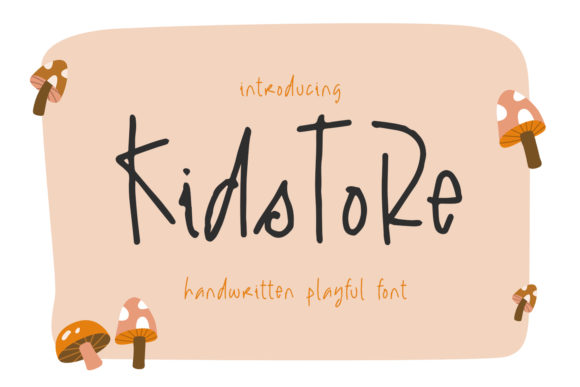
Welcome to the world of Kidstore Script Font - a lively and playful handwritten font that will leave you spellbound. Crafted with meticulous care by the talented team at cilatype, Kidstore is the perfect choice for whimsical, sophisticated projects.
This masterpiece of a font draws inspiration from the innocence and exuberance of childhood. Its dancing baselines and whimsical characters effortlessly capture the energy and carefree spirit of youth. Kidstore is a font that invites you to dream big, to embrace your imagination, and to create designs that are as unique and captivating as the font itself.
With Kidstore, you can craft designs that speak to the heart. Its charm and versatility make it an ideal choice for branding, invitations, posters, and social media posts. The font's ability to evoke a sense of nostalgia and warmth makes it perfect for projects that aim to connect with audiences on an emotional level.
Whether you're a seasoned designer or just starting out, Kidstore is the perfect font to add a touch of magic to your creative projects. Its user-friendly nature makes it easy to work with, and its endless possibilities will keep you inspired for hours on end.